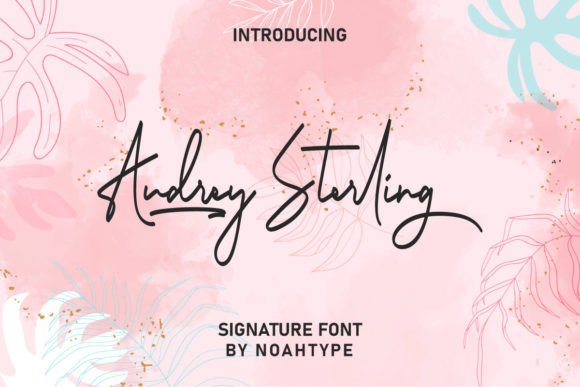
The Audrey Sterling Font: A Beautiful Signature Font for Elegant Designs
Have you ever been in the middle of a design project, and suddenly, you’re stuck on finding the perfect font? I recall a recent experience where I was working on a wedding invitation design for a client, and I just couldn’t seem to find a font that captured the elegance and sophistication we were aiming for. That’s when I stumbled upon the Audrey Sterling Font, and it completely transformed my design. In this article, I’ll share my experience with this beautiful signature font, its features, and how you can make the most of it in your designs.
A Personal Review: What I Love About Audrey Sterling Font
The Audrey Sterling Font is a handwriting-style script font that exudes elegance and sophistication. Here are some things I love about it:
- ✨ Natural and fluid strokes: The font is carefully crafted to mimic natural handwriting, making it perfect for designs that require a personal touch.
- ✅ PUA encoded: The font is PUA encoded, which means you can easily access all the amazing glyphs and ligatures to add an extra layer of creativity to your designs.
- 💫 Versatile: The font is suitable for a wide range of industries, including author, café, cosmetic, events, fashion, florist, homeware, photography, publishing, wedding organizing, and more!
While the Audrey Sterling Font is an amazing font, there are a few things to keep in mind:
- ⚠️ Legibility at small sizes: Like many script fonts, the Audrey Sterling Font may not be legible at very small sizes. It’s best to use it at larger sizes to ensure maximum impact.
- 🤔 Overuse of glyphs and ligatures: With so many glyphs and ligatures available, it’s easy to get carried away and overuse them. Be mindful of the overall design and use them sparingly to avoid visual overload.
A Practical Guide: Using Audrey Sterling Font in Your Designs
The Audrey Sterling Font comes with a range of OpenType features and glyphs that can elevate your designs. Here are some tips on how to make the most of them:
- Stylistic alternates: Use stylistic alternates to create variations of letters and glyphs that can add visual interest to your designs.
- Ligatures: Use ligatures to combine letters and create a more fluid, natural look.
- Glyphs: Use glyphs to add decorative elements to your designs, such as swashes and flourishes.
The Story Behind Audrey Sterling Font
The Audrey Sterling Font was designed with elegance and sophistication in mind. The font’s creator aimed to craft a font that would capture the essence of natural handwriting, while also providing a high level of legibility and versatility. The result is a beautiful signature font that’s perfect for designs that require a touch of elegance.
| Font Name | Audrey Sterling Font |
| Author | NoahType |
| What is the Audrey Sterling Font? | The Audrey Sterling Font is a beautiful signature font with a handwriting style, carefully crafted to mimic natural handwriting. |
| What is the Audrey Sterling Font suitable for? | The font is suitable for a wide range of industries, including author, café, cosmetic, events, fashion, florist, homeware, photography, publishing, wedding organizing, and more! |